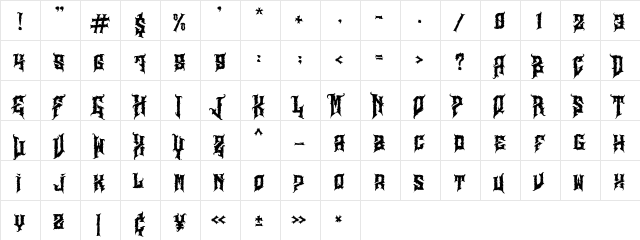
Aligator Regular
| Foundry | Garisman Studio |
| Designer | Risman Ginarwan |
Design Context for Aligator Typeface
Aligator is a composed and adaptable typeface that performs quietly and consistently across a wide range of design contexts.